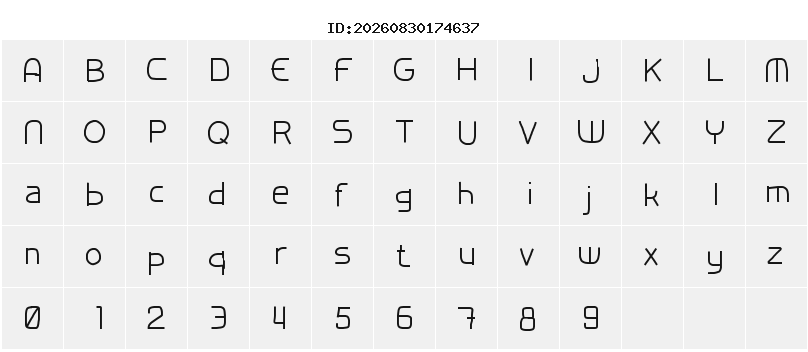
TestFontHF Preview
• Font Name: TestFontHF
• Full Font Name: TestFontHF
• PostScript Name: TestFontHF
About TestFontHF.ttf
TestFontHF.ttf is a modern, elegant sans-serif font designed for ultimate readability and visual harmony. Perfect for branding, headlines, web design, and print materials.